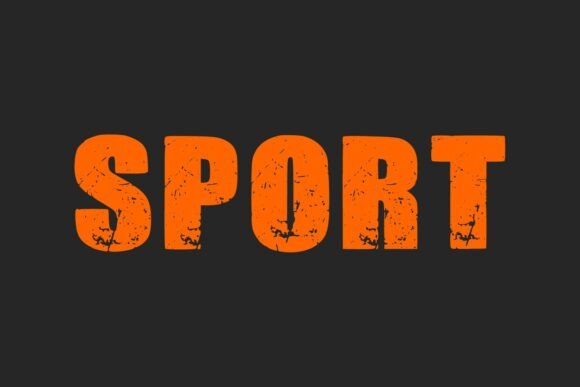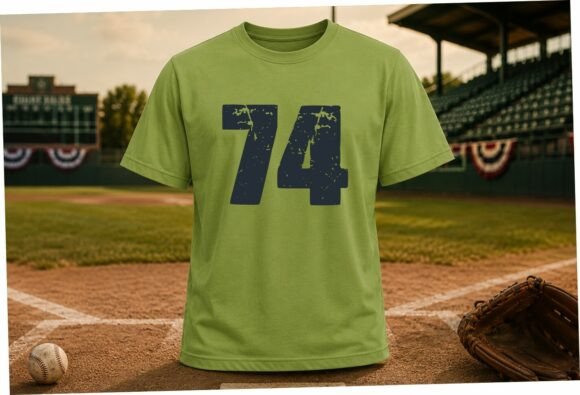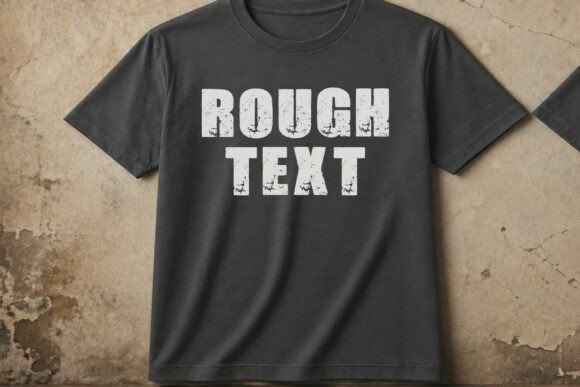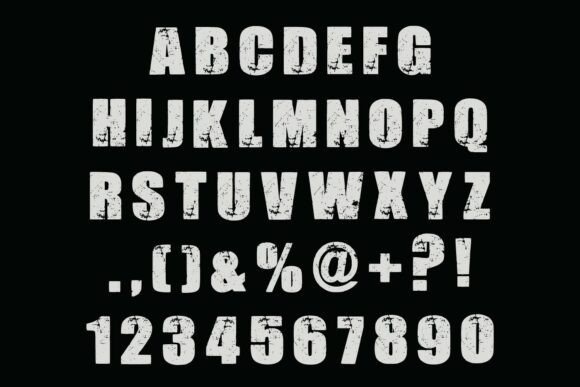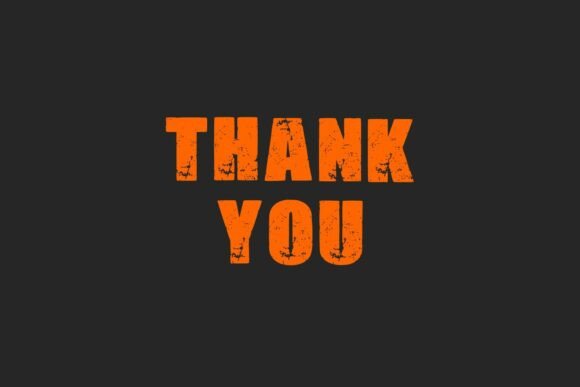
The Designer’s Delight: Unleashing the Power of Damage Vintage Font
I’ll never forget the time I was working on a retro-themed poster project, and I just couldn’t seem to find the perfect font. My client wanted something bold, gritty, and authentic, but everything I tried looked either too polished or too bland. That’s when I stumbled upon Damage Vintage, a bold grunge display font that instantly captured the essence of the project. In this article, I’ll share my experience with Damage Vintage, its features, and how to make the most of it in your designs.
First Impressions: A Love Letter to Damage Vintage
Damage Vintage is a bold grunge display font that embodies the spirit of distressed textures, retro typography, and rugged vintage aesthetics. Its strong uppercase characters, complete with scratch and worn effects, make it perfect for creating posters, apparel designs, logos, branding, packaging, album covers, streetwear, and retro-themed creative projects.
What I Love About Damage Vintage
- ✨ Unique and authentic vintage style: Damage Vintage boasts a rough, worn look that’s perfect for creating designs that stand out from the crowd.
- ✅ Highly versatile: This font can be used for a wide range of projects, from posters and logos to apparel and packaging.
- 💥 Attention-grabbing: The bold, distressed texture of Damage Vintage demands attention and creates a powerful visual impact.
While Damage Vintage is an excellent font, it’s not without its quirks. For instance:
- 🤔 Limited use in body text: Due to its bold and distressed nature, Damage Vintage is best suited for headlines and titles rather than body text.
- ⚠️ Requires careful kerning: As with any font, kerning is crucial to ensure that Damage Vintage looks its best. Be prepared to adjust the spacing between letters to achieve optimal results.
- Experiment with the font’s OpenType features, such as stylistic alternates, to add visual interest to your design.
Damage Vintage was created by a team of designers who were passionate about capturing the essence of retro typography and distressed textures. Inspired by the rugged, industrial aesthetic of vintage signs and posters, they crafted a font that embodies the spirit of rebellion and nonconformity. The result is a bold, grunge-inspired font that’s perfect for designers who want to add a touch of authenticity to their work.
Q: What type of projects is Damage Vintage best suited for?
A: Damage Vintage is perfect for posters, apparel designs, logos, branding, packaging, album covers, streetwear, and retro-themed creative projects.
Q: Can I use Damage Vintage for body text?
A: While Damage Vintage can be used for body text, it’s best suited for headlines and titles due to its bold and distressed nature.